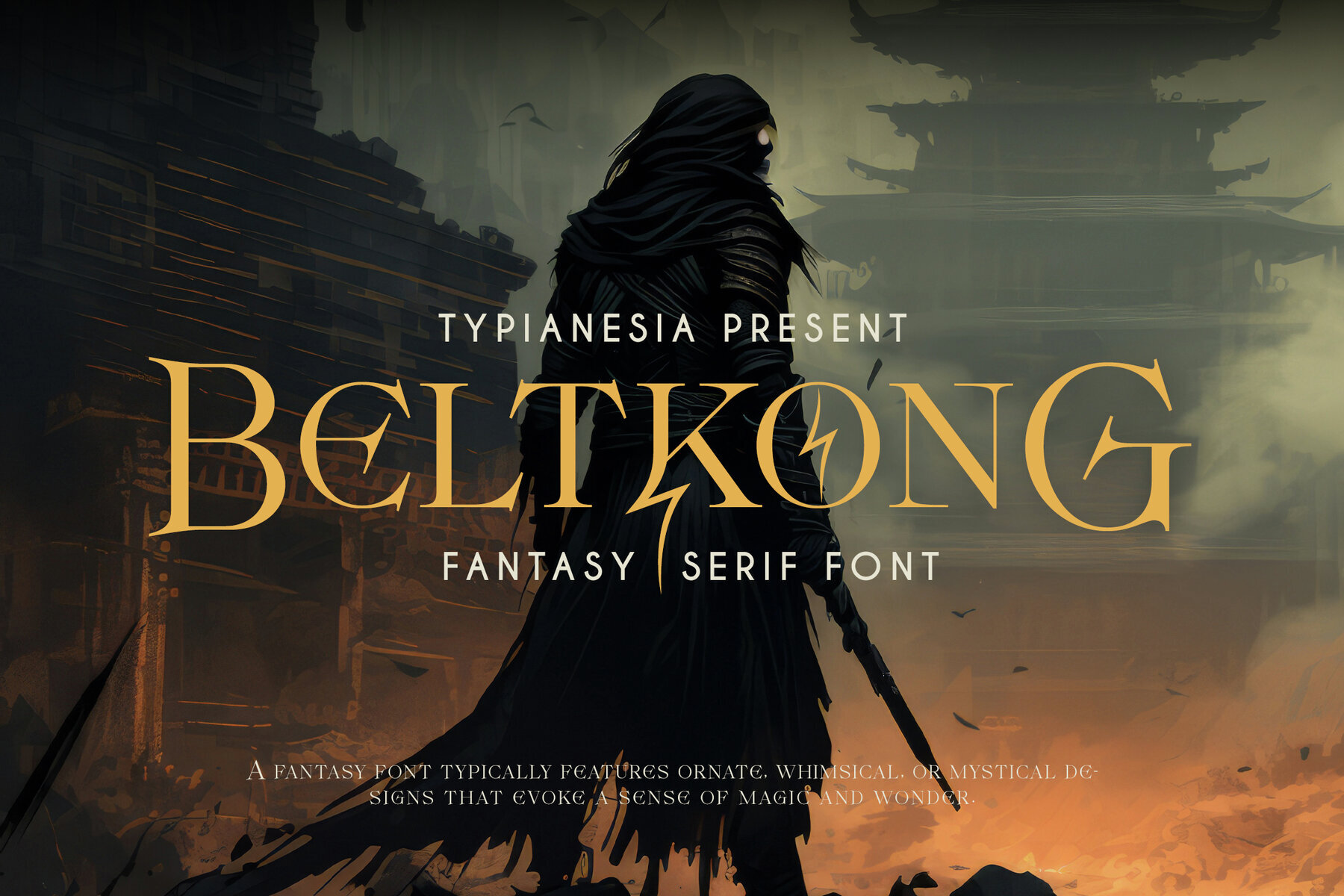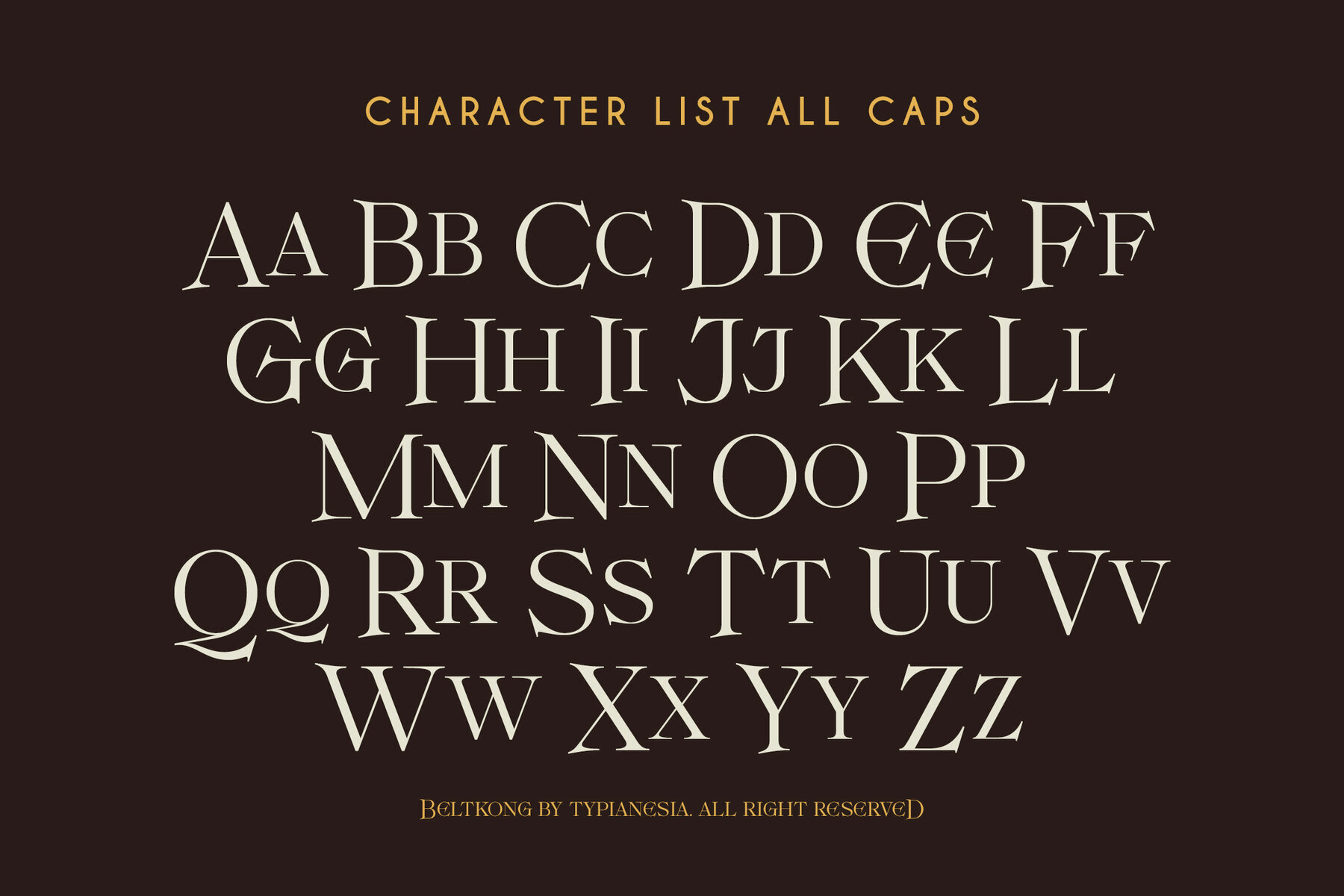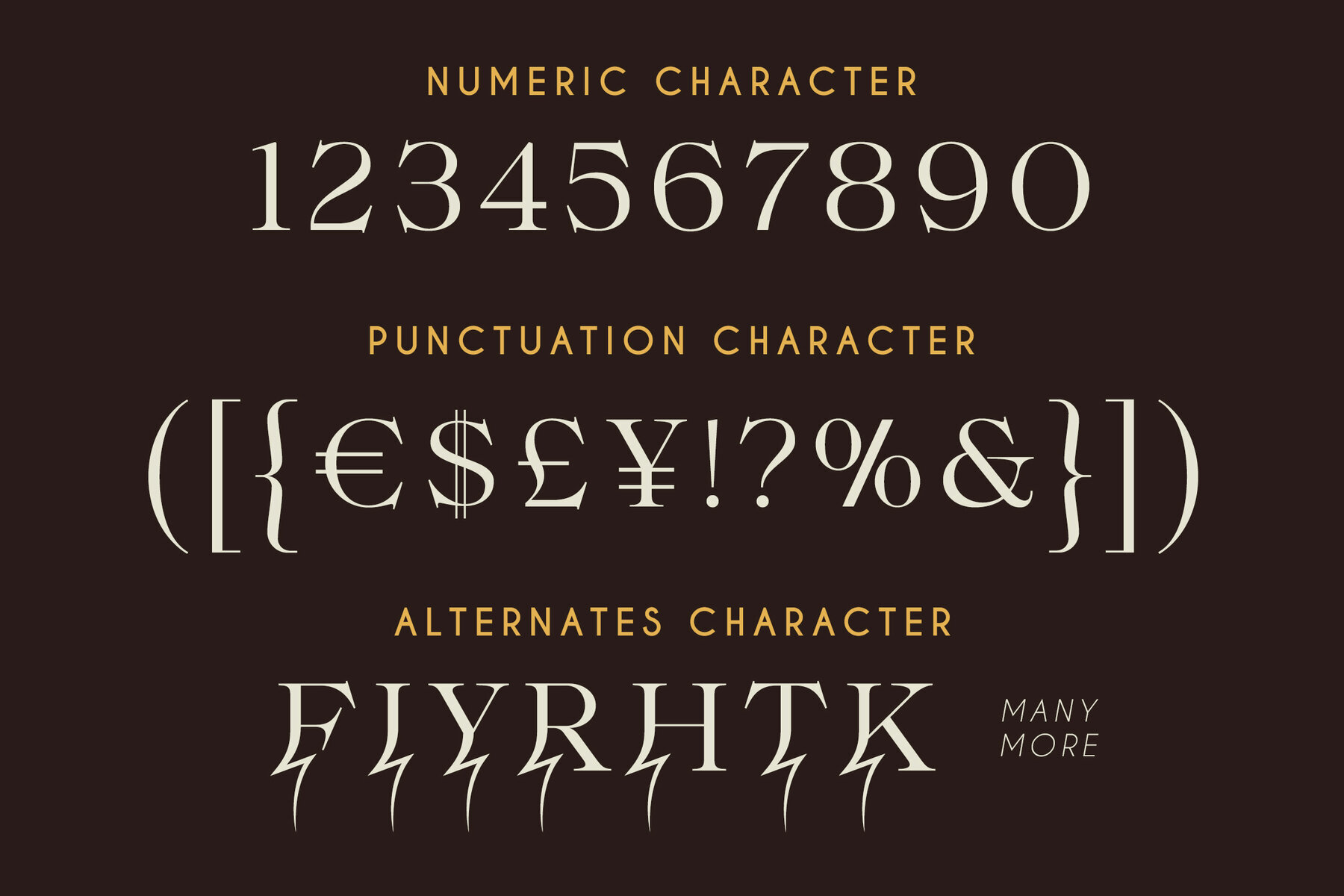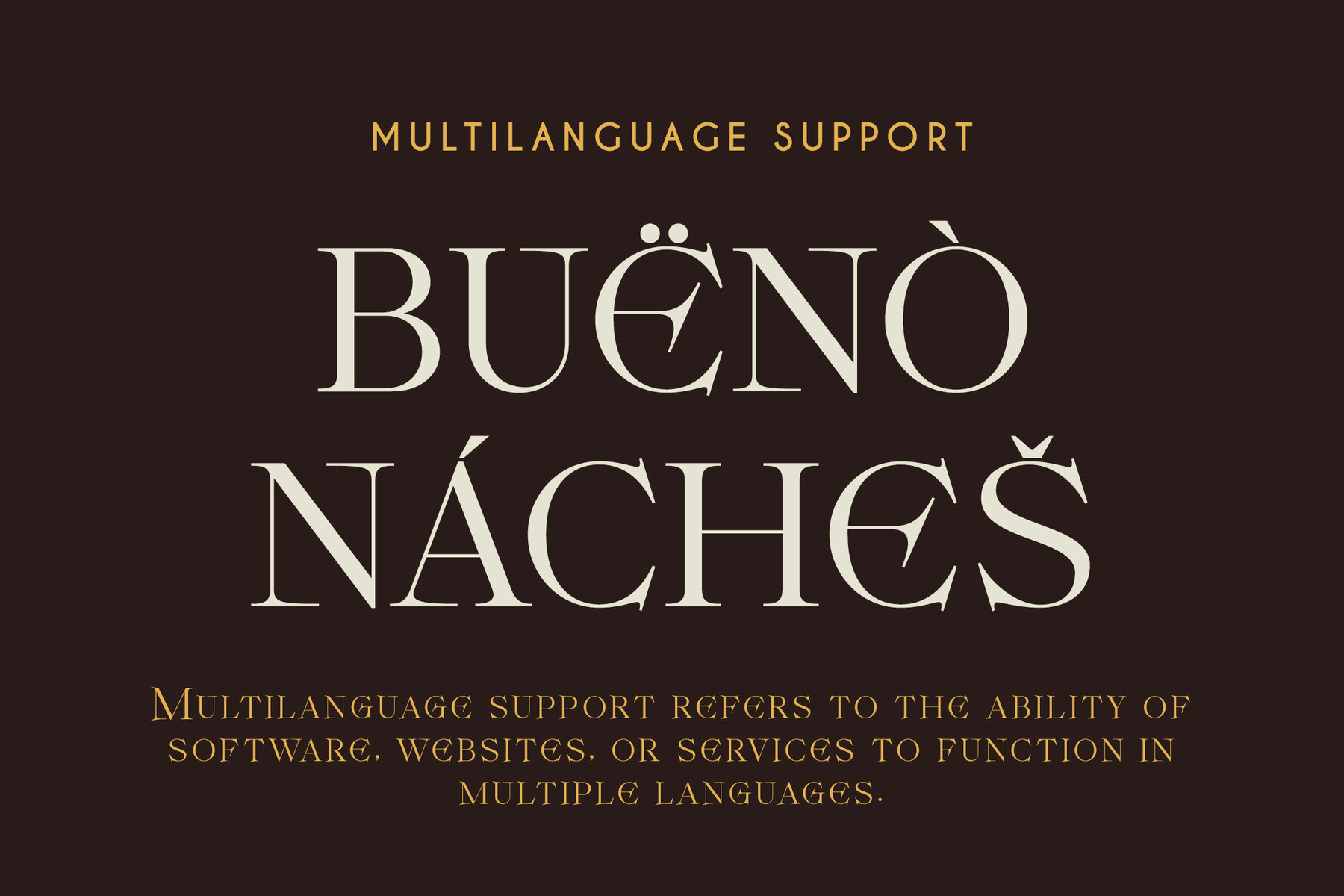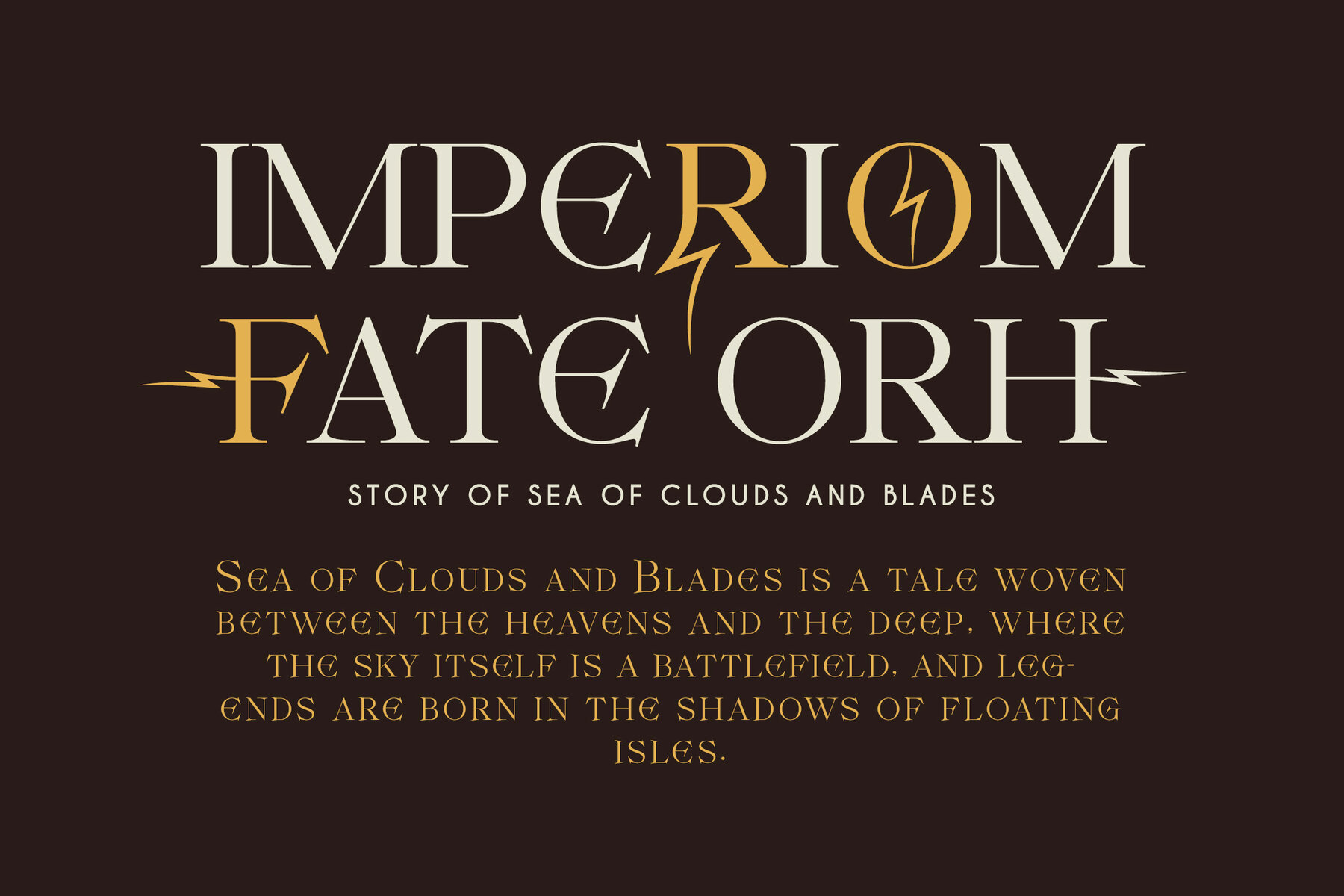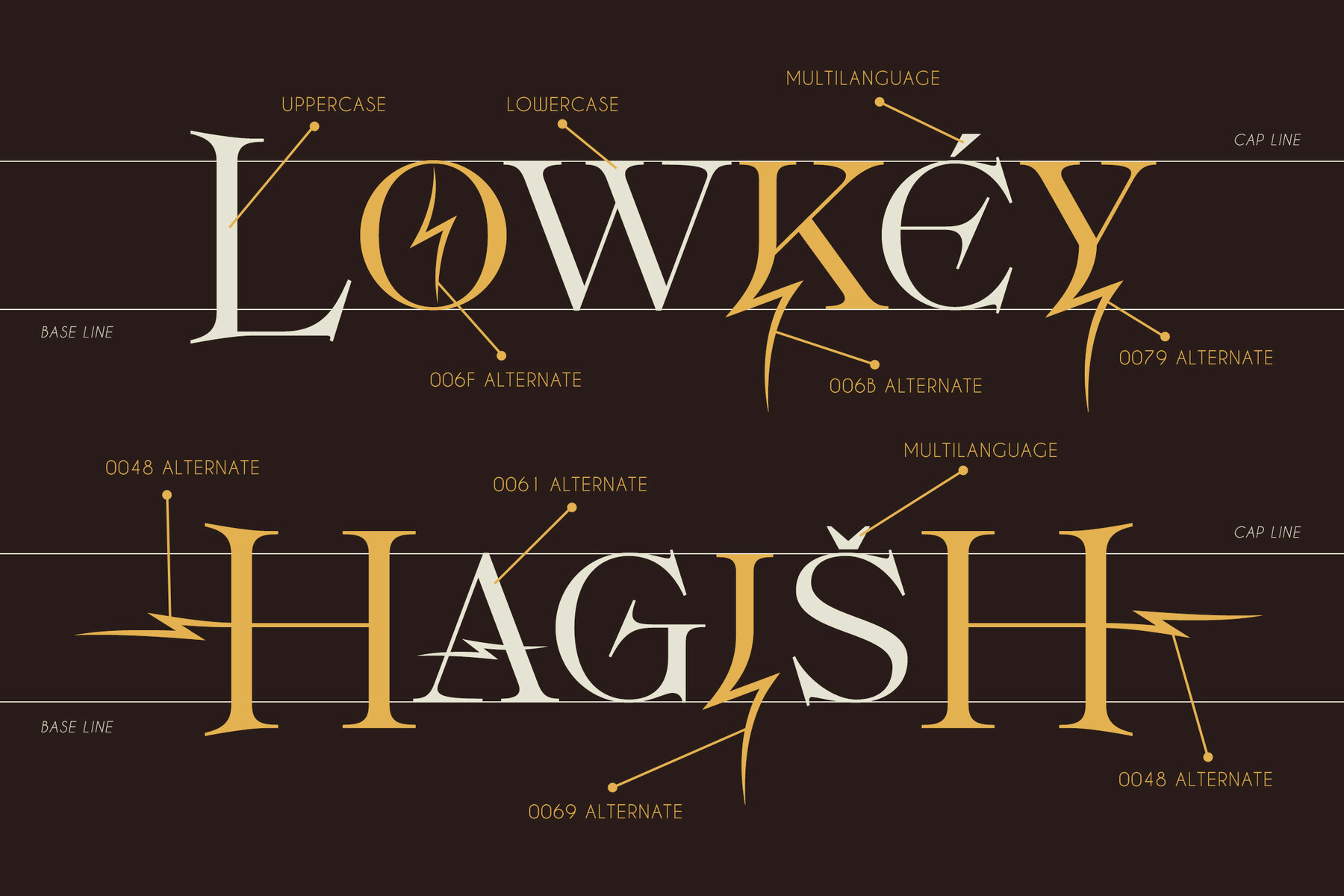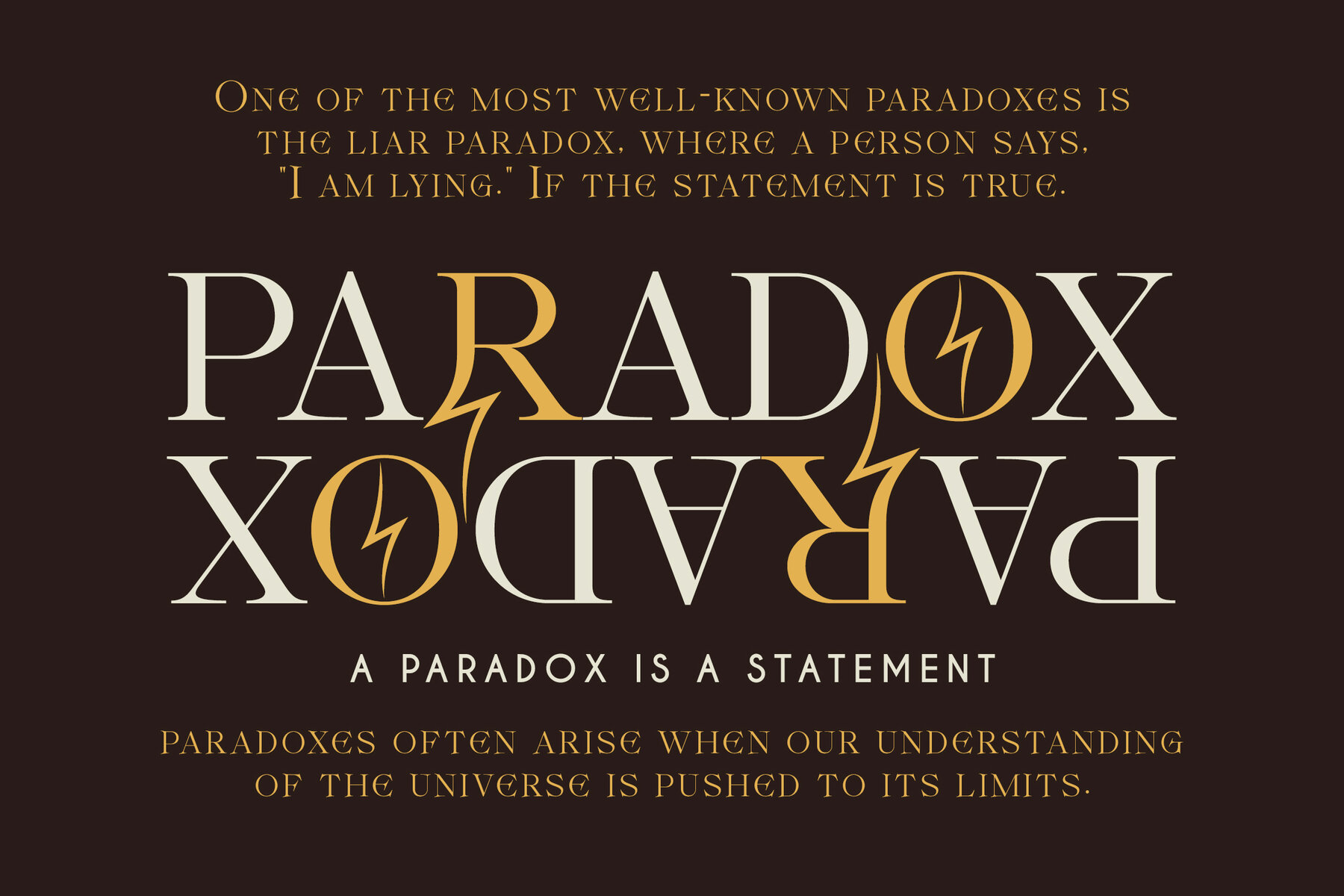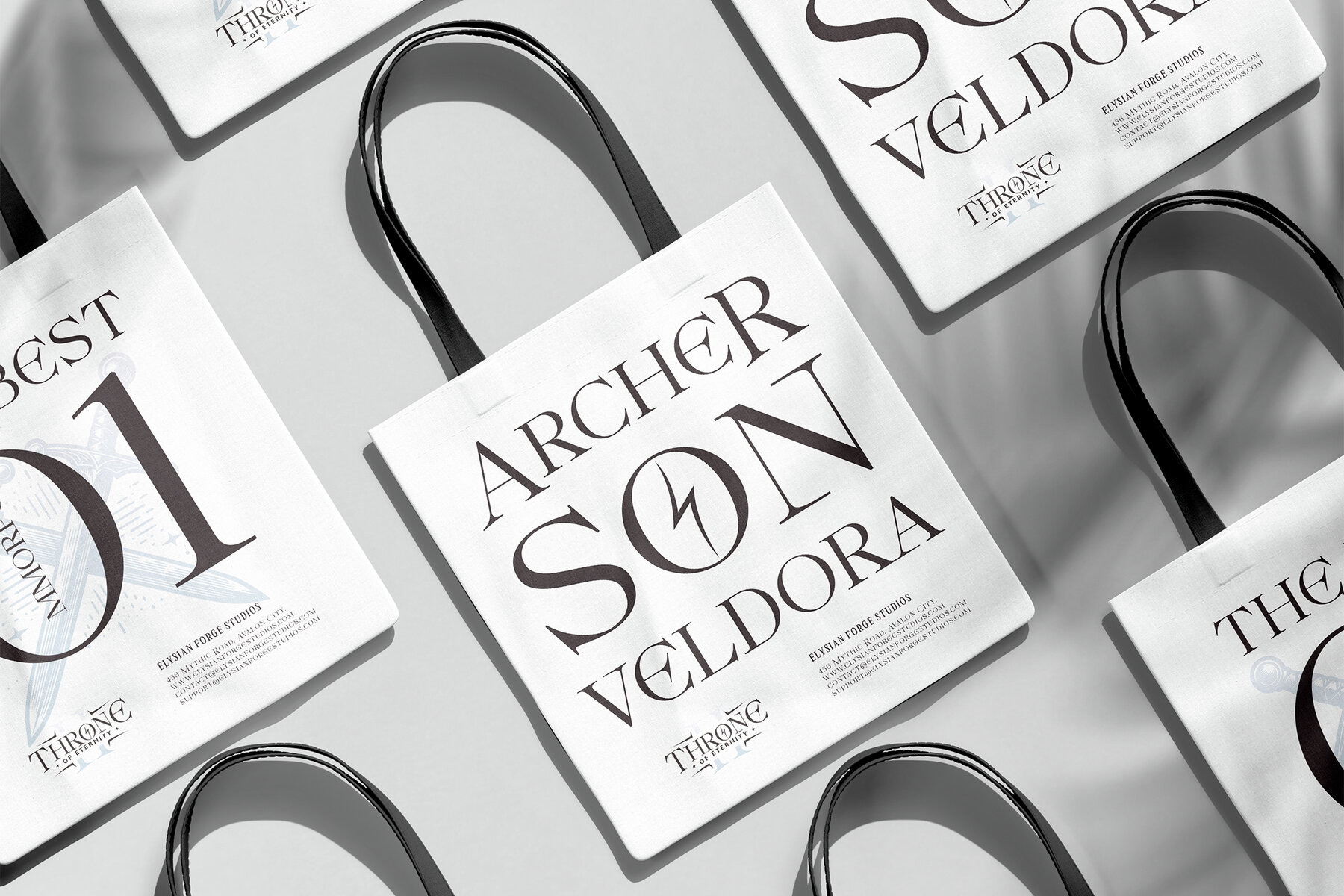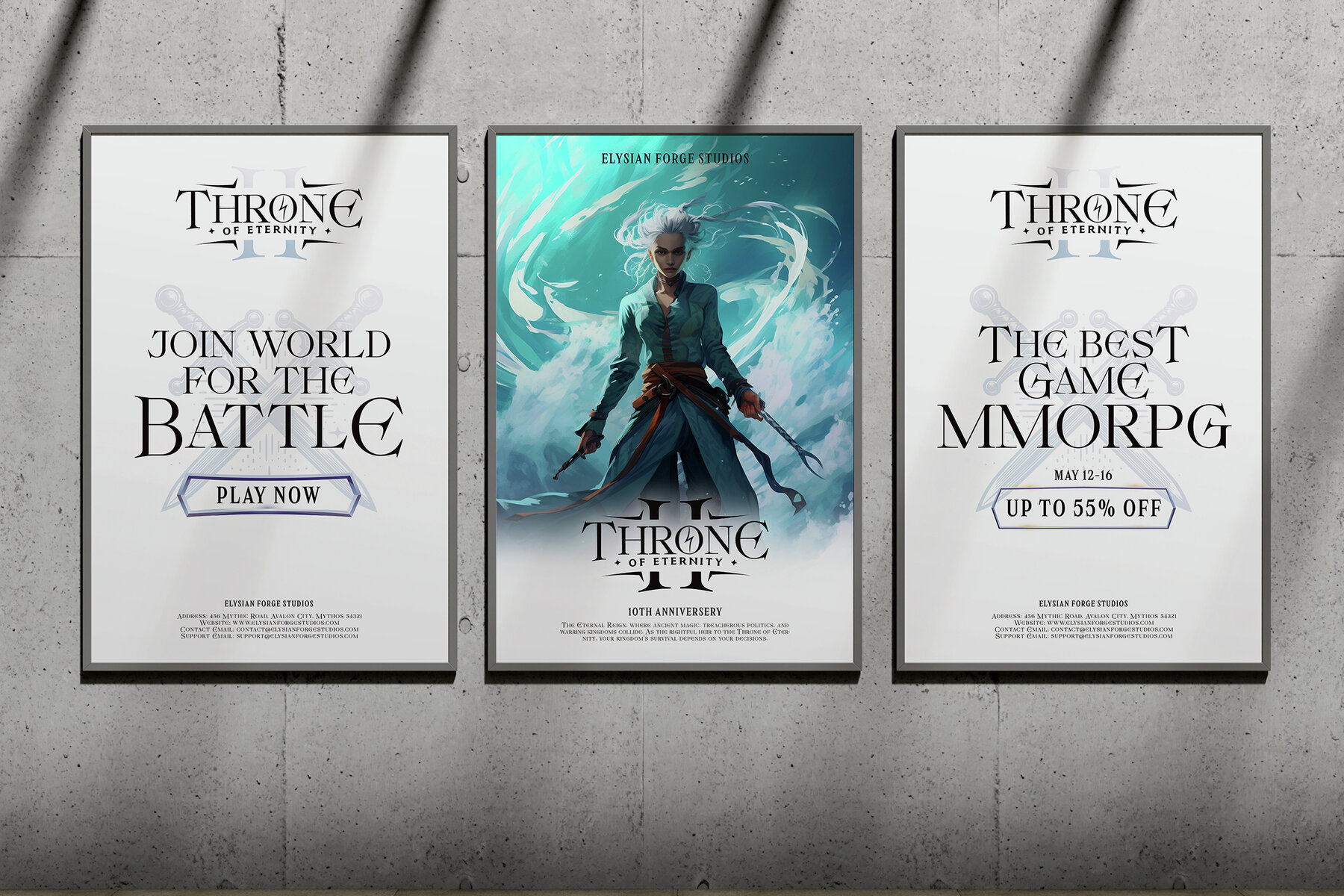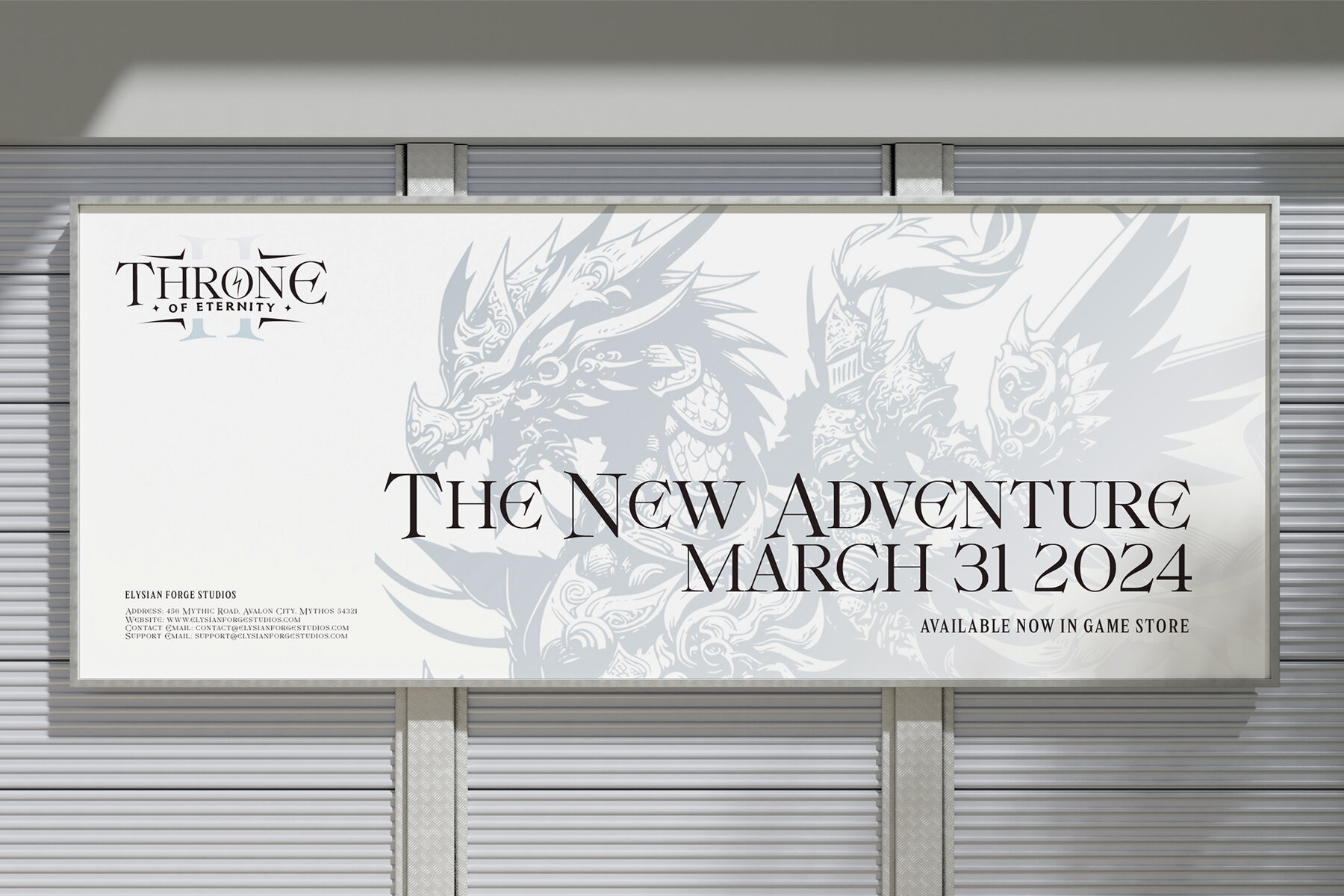
Beltkong Font
Beltkong Regular
Beltkong is a Fantasy Serif Font that merges the timeless qualities of serif fonts with an imaginative, fantasy-inspired design. Its bold, striking characters are imbued with a touch of mythical allure, making it perfect for projects that require a blend of elegance and creativity. Ideal for book covers, fantasy-themed games, movie titles, posters, music branding, packaging, logo design, halloween event and branding that demands a unique, fantasy vibe. Beltkong brings a sense of mystique and grandeur to logos, headlines, and any design that seeks a balance between classic serif style and fantasy aesthetics. Comes with features to elevate your creative work. It includes ligatures for smooth character combinations, a complete set of uppercase and lowercase letters, punctuation, numerals, and a variety of unique alternates. Additionally, it offers extensive multilingual support, making it a versatile choice for global applications. Designed with intricate detailing and fantasy elements, Beltkong is a font that stands out, offering a versatile and unique option for designers who want to evoke fantasy charm in their work.